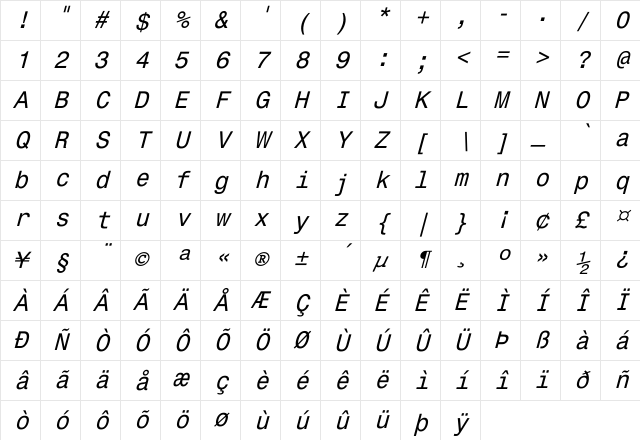
Monospace821 Italic
Monospace821 Italic Family
Complete Monospace821 Italic glyph index. Displaying only characters natively supported by Monospace821 Italic font.
Design Context for Monospace821
Monospace821 uses fixed-width spacing throughout, giving it the structured, systematic character associated with coding environments and technical documentation. The slanted form adds forward momentum and visual energy.